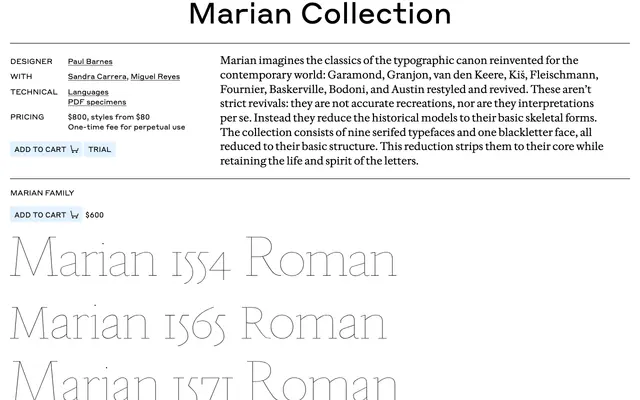
Marian specimen from Commercial Type
A hairline serif system from Paul Barnes that reduces nine canonical serif revivals plus a blackletter to their skeletal structure for display use.
A display serif system designed by Paul Barnes with Sandra Carrera and Miguel Reyes. Marian imagines the typographic canon, from Garamond, Granjon, van den Keere and Kis through Fleischmann, Fournier, Baskerville, Bodoni and Austin, plus a blackletter, restyled as hairline outlines. Each style sits at a particular historical date (1554, 1565, 1571, 1680, 1740, 1742, 1757, 1800, 1812) in Roman and Italic, with a Marian Black weight and a Marian Text family for body copy in the 1554, 1757, 1800 and 1812 designs. Sits in fashion, luxury, gallery and editorial design where you want the spirit of a classical model at the lightest possible weight.
Commercial Type describe Marian as Paul Barnes's reduction of canonical historical serifs (Garamond, Granjon, van den Keere, Kis, Fleischmann, Fournier, Baskerville, Bodoni, Austin) plus a blackletter, stripped to their skeletal structure as a hairline display family, with a Text companion in some cuts.